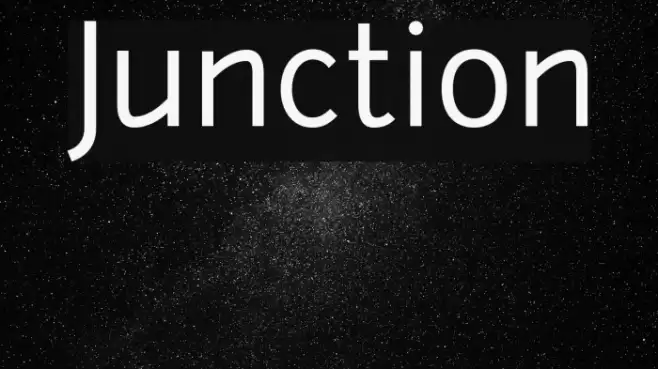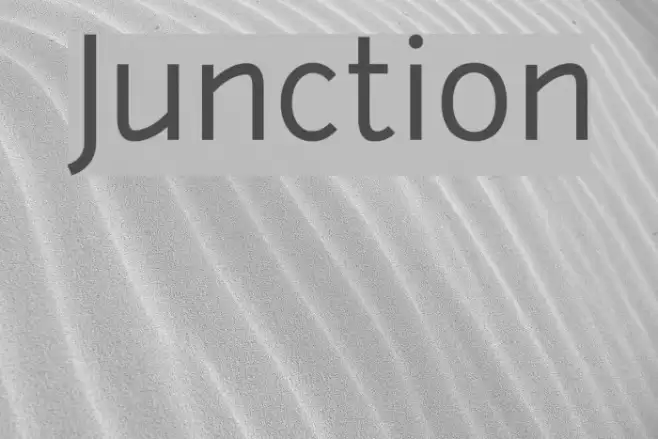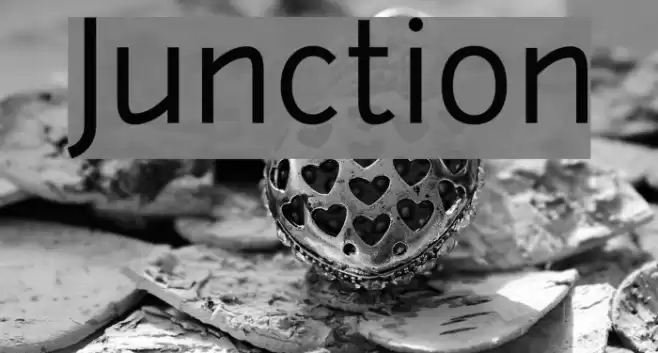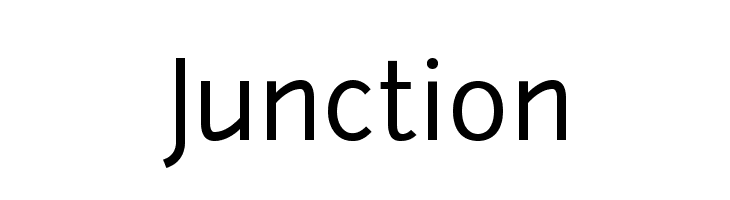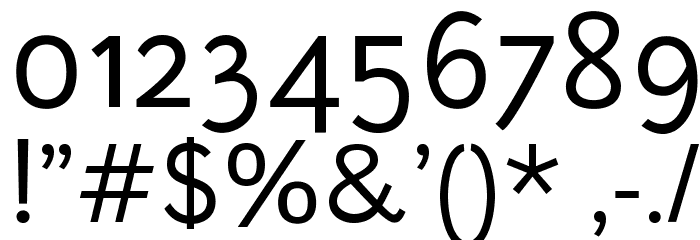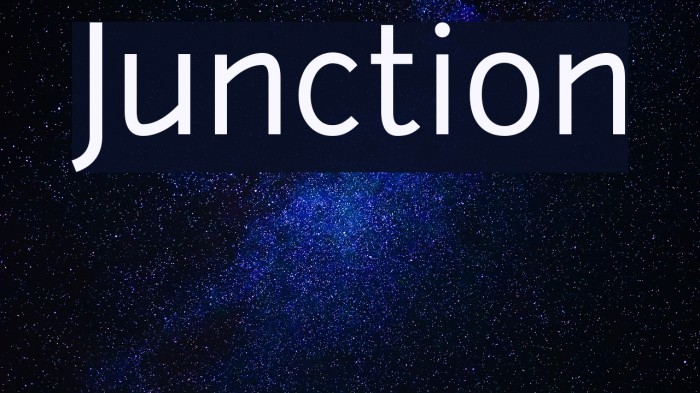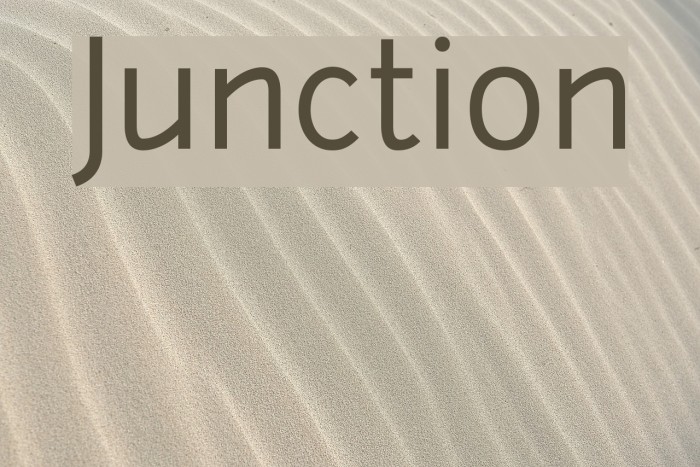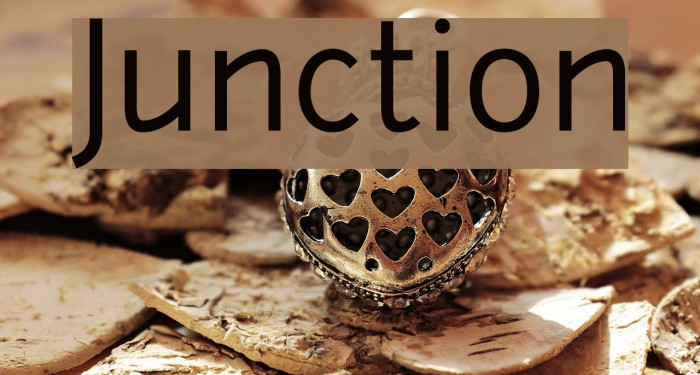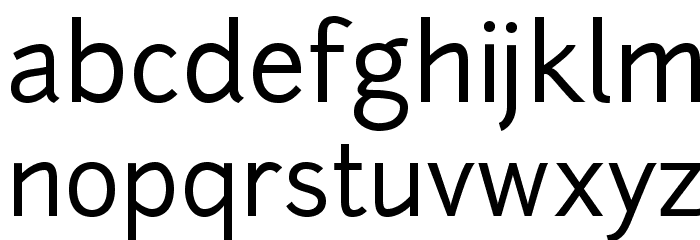
Junction Font
Junction Description
This font features a clean and modern sans-serif design, characterized by its smooth curves and balanced proportions. The uppercase letters are bold and assertive, while the lowercase letters maintain a friendly and approachable appearance. The numerals are clear and easily distinguishable, making them suitable for both digital and print applications. Special characters are well-integrated, ensuring consistency across various uses. The overall design is versatile, making it ideal for a wide range of projects from branding to editorial design.
A modern sans-serif font with clean lines and balanced proportions from Uncategorized fonts.
- Proposed Projects: Ideal for branding, editorial design, web design, and advertising.